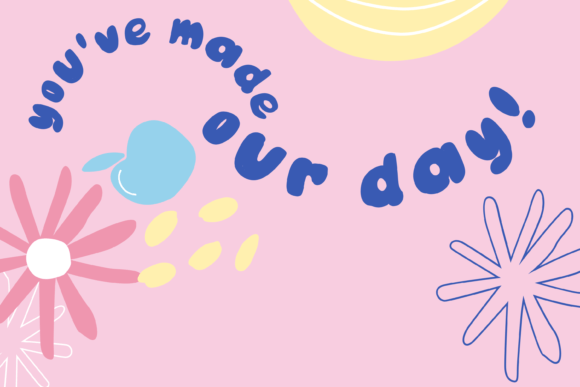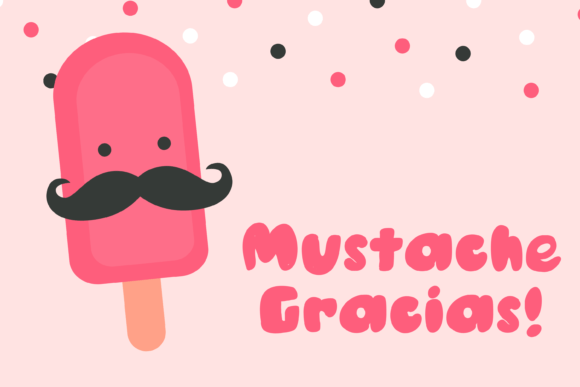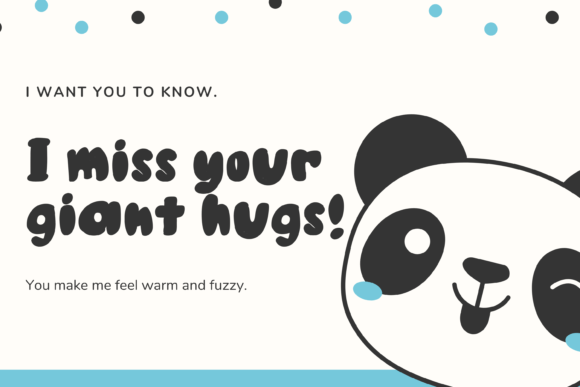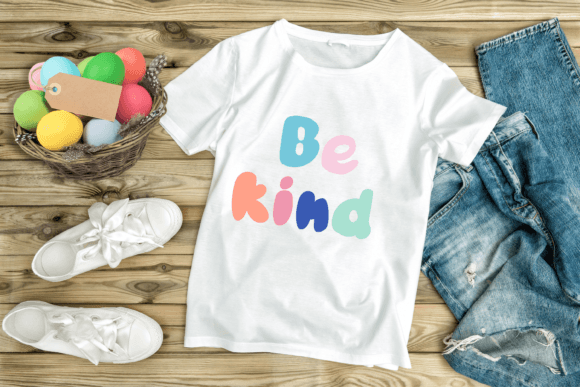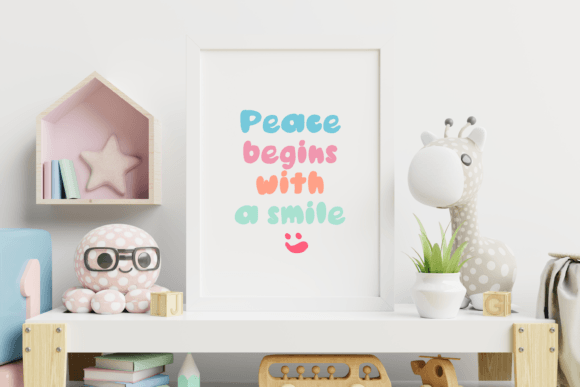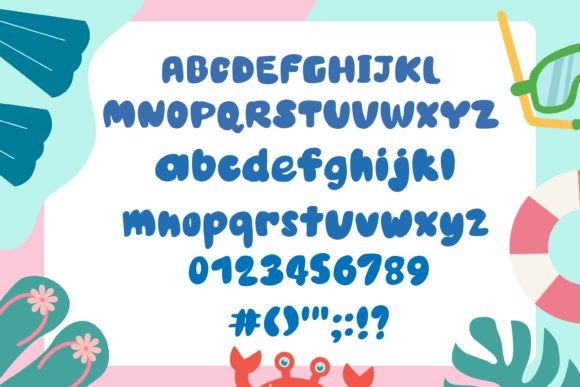
Have you ever found yourself staring at a blank page, trying to come up with the perfect design concept for a client or project? You’ve got the idea, but something’s missing – a certain je ne sais quoi that will make your design truly stand out. For designers, it’s those little moments of inspiration that can make all the difference, and that’s exactly where the Bubbly Font comes in.
This lovely display font is designed to provide easy and whimsical vibes to your designs, making it the perfect addition to any project that needs a touch of sweetness and festivity. Whether you’re working on a birthday invitation, a children’s book, or a social media campaign, the Bubbly Font is sure to add a playful touch that will capture your audience’s attention.
With its adorable and festive design, the Bubbly Font is a valuable asset for any designer looking to add a little extra magic to their work. Its versatility and ease of use make it a must-have for anyone looking to create designs that are both fun and effective.
Bubbly Font Key Features
- Font Family: Bubbly Font is a custom, hand-drawn font family designed for various applications.
- Character Set: The font family includes over 200 characters, including uppercase and lowercase letters, numbers, and special characters.
- Unique Characteristics: The font features a playful, bubbly design with varying line widths and rounded shapes, adding a touch of whimsy to any text.
Bubbly Font Review
I was really excited to dive into the Bubbly Font, with its playful and bubbly feel. Here’s my honest review:
- The font is perfect for creating a fun and youthful vibe, making it ideal for children’s products, social media graphics, or any design project that needs a touch of playfulness.
- The font is highly customizable, allowing you to adjust the size, color, and spacing to fit your design needs.
- The font is highly legible, even at smaller font sizes, making it perfect for body text or smaller text elements.
- The font may not be the best choice for formal or professional designs, as its playful feel may not be taken seriously.
- The font may not be suitable for text-heavy designs, as its bubbly feel can make long blocks of text difficult to read.
The Bubbly Font is a great addition to any designer’s toolkit, especially for projects that require a playful and youthful vibe. While it may not be suitable for all design projects, its high level of customization and legibility make it a great choice for the right projects. Overall, I’d give the Bubbly Font 4 out of 5 stars.
Tips for Getting the Most Out of Bubbly Font
Use Bubbly Font to add a playful touch to your designs. Experiment with different font sizes, colors, and combinations to create unique and eye-catching effects.
Bubbly Font is perfect for creating playful and youthful designs, such as social media graphics, children’s books, or party invitations. It’s also great for adding a touch of whimsy to business cards, brochures, or other marketing materials.